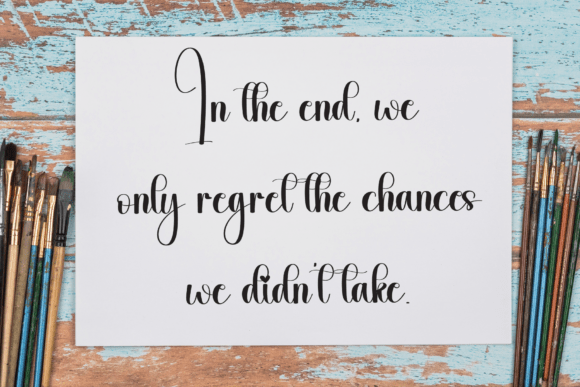
Introducing Number Font: Elevate Your Designs with Elegance and Sophistication
In the world of typography, a well-crafted font can make all the difference in elevating your designs from ordinary to extraordinary. Meet Number Font, a stylish script font that exudes elegance and contemporary charm. With its graceful strokes, fluid curves, and carefully crafted letterforms, this font captures the beauty of hand-drawn calligraphy with a modern twist.
The Beauty of Hand-Drawn Calligraphy with a Modern Twist
Number Font is inspired by the art of hand-drawn calligraphy, but with a modern and refined approach. Its fluid curves and strokes are carefully crafted to create a sense of movement and flow, making it perfect for designs that require a touch of elegance and sophistication. The font’s letterforms are meticulously designed to ensure that each character is unique and visually appealing, making it ideal for a wide range of design applications.
Versatility and Visual Appeal
One of the standout features of Number Font is its versatility. With its natural flow and polished details, this font can be used for a wide range of design projects, from logos and invitations to packaging and social media graphics. Whether you’re looking to create a sophisticated brand identity or add a touch of elegance to your marketing materials, Number Font delivers both versatility and visual appeal.
- Logos: Create a lasting impression with a custom logo that exudes elegance and sophistication.
- Invitations: Add a touch of refinement to your wedding invitations, birthday party invites, or corporate events.
- Packaging: Elevate your product packaging with a font that conveys luxury and high-end quality.
- Social Media Graphics: Create engaging social media graphics that stand out from the crowd with Number Font’s unique and stylish design.
Key Features of Number Font
So, what sets Number Font apart from other script fonts? Here are some of its key features:
- Elegant and Contemporary Design: Number Font boasts a stylish and modern design that is perfect for designs that require a touch of sophistication.
- Fluid Curves and Strokes: The font’s fluid curves and strokes create a sense of movement and flow, making it perfect for designs that require a dynamic and elegant look.
- Carefully Crafted Letterforms: Each letterform is meticulously designed to ensure that every character is unique and visually appealing.
- Natural Flow and Polished Details: The font’s natural flow and polished details make it perfect for a wide range of design applications.
Tips for Using Number Font Effectively
To get the most out of Number Font, here are some tips for using it effectively in your designs:
- Pair it with a Sans-Serif Font: Pair Number Font with a sans-serif font to create a striking contrast and add visual interest to your design.
- Use it for Headlines and Titles: Use Number Font for headlines and titles to add a touch of elegance and sophistication to your design.
- Experiment with Colors and Textures: Experiment with different colors and textures to add depth and visual interest to your design.
- Keep it Simple: Don’t overcomplicate your design. Keep it simple and let Number Font’s elegant design take center stage.
In conclusion, Number Font is a stylish script font that exudes elegance and contemporary charm. With its fluid curves, strokes, and carefully crafted letterforms, it captures the beauty of hand-drawn calligraphy with a modern twist. Whether you’re looking to create a sophisticated brand identity or add a touch of elegance to your marketing materials, Number Font delivers both versatility and visual appeal. So why settle for an ordinary font when you can elevate your designs with the elegance and sophistication of Number Font?
Here are some frequently asked questions about Number Font:
- What is Number Font?
- Number Font is a stylish script font that exudes elegance and contemporary charm.
- What design applications is Number Font suitable for?
- Number Font is suitable for a wide range of design applications, including logos, invitations, packaging, and social media graphics.